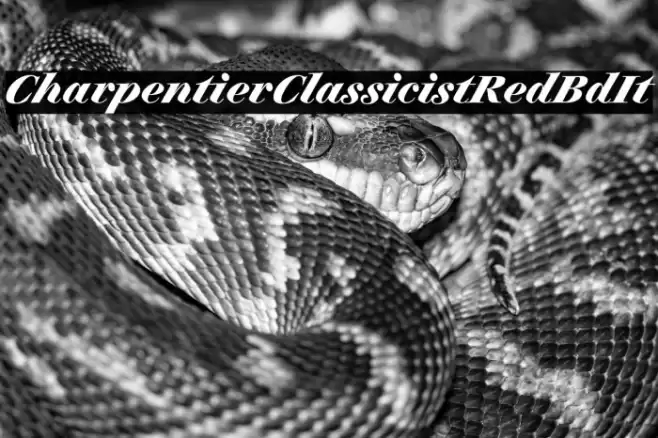
CharpentierClassicistRed-BdIt Font
CharpentierClassicistRed-BdIt Description
This font exhibits a classic and elegant style, characterized by its bold and italicized serif design. The letters have a distinct slant, adding a sense of movement and sophistication. The uppercase letters are grand and commanding, while the lowercase letters maintain a harmonious flow. The numerals are consistent with the overall style, providing a seamless integration with the alphabet. Special characters are designed with the same attention to detail, ensuring versatility in various applications. The font's high contrast between thick and thin strokes enhances its readability and visual appeal, making it suitable for both formal and creative projects.
A bold, italicized serif font with high contrast and elegant style from Uncategorized fonts.
- Proposed Projects: Ideal for luxury branding, wedding invitations, editorial design, and high-end product packaging.
- Overall Style: Classic
- Use Case: Headlines, Logos, Invitations